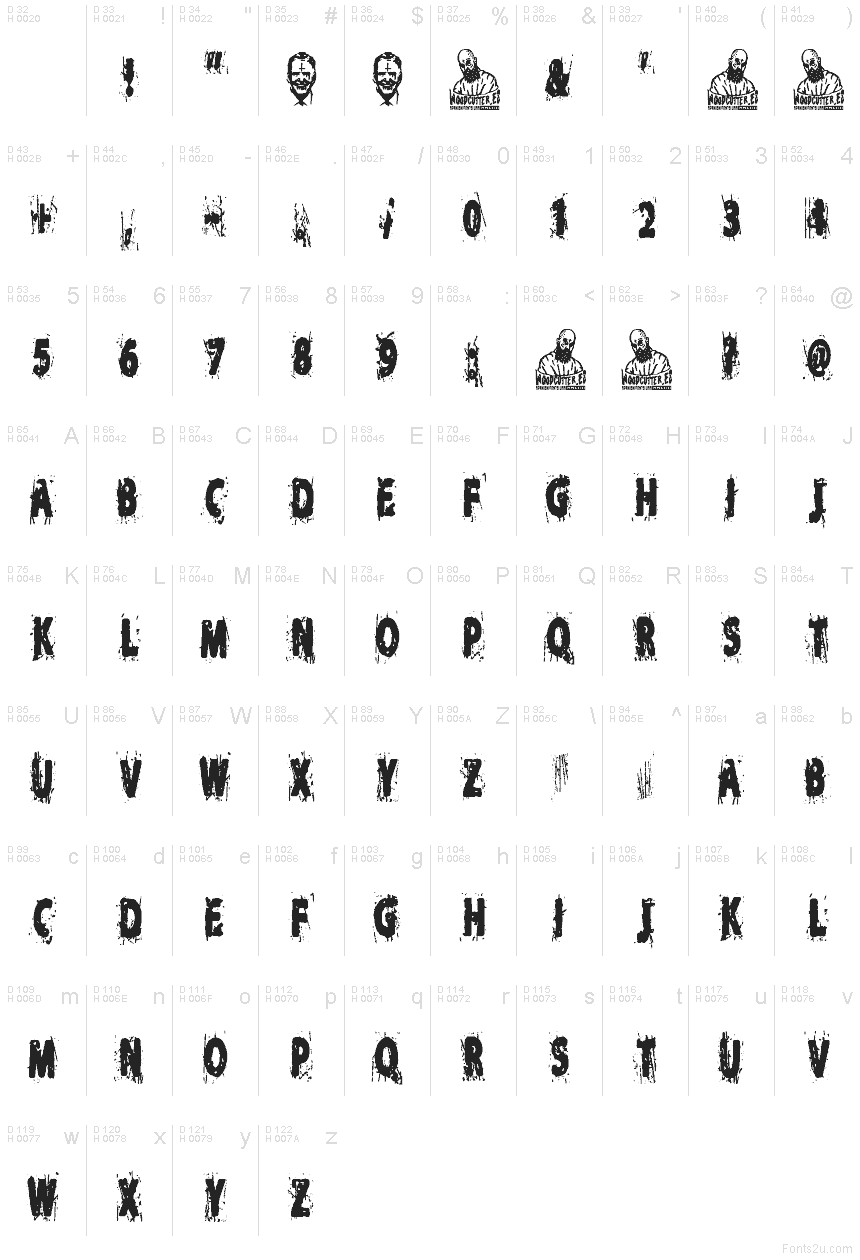
The Biden's Nightmare
The Biden's Nightmare font by Woodcutter is a free condensed display font with distorted designs. The letters have a grungy and distressed look especially since some of its parts are missing entirely. The typeface is in bold and it conveys a powerful aura that many might consider gothic or even scary.
If you are looking to use this font, you could include it in mentions of the uncomfortable night dreams, music album design, band poster, gothic branding design, book covers for horror novels or similar purposes. It could also be used on websites such as Halloween sites and on social media pages for which it’s suitable.